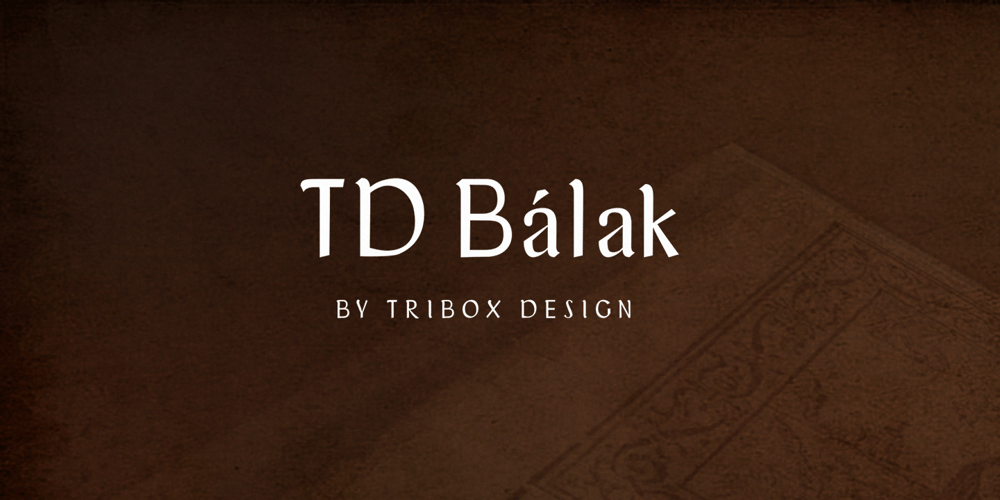
TD Balak
TD Balak font
TD Balak Font Family was designed by Inusentes Catapusan and published by Tribox Design. TD Balak contains 1 styles and family package options. Team Tribox Design created the font to improve the old font print of Doctrina Christiana. Each letter is designed for better readability even in small sizes, particularly for books, and is designed for poets, writers, and anyone who needs a font used in publishing.The font is personally designed and is intended for use by publishers and those seeking publication.Regine Ylaya: Art Director, ResearchInu Catapusan: Font/Typeface Designer, Creative Director, CopywriterFaye Penetrante: Copy Editor